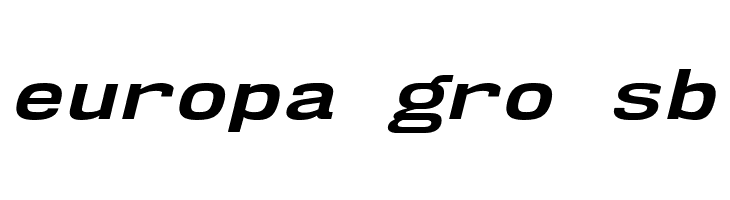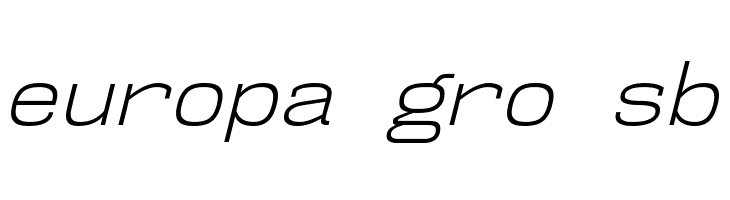
A bold, monospaced font with a modern and structured design.
A modern, monospaced italic font with light strokes and a clean design.
A modern, monospaced font with uniform strokes and a geometric influence.
A bold, monospaced font with a modern, utilitarian design ideal for technical use.
A bold, italicized monospaced font with a modern and structured appearance.
A modern, monospaced italic font with uniform character spacing.
A clean, geometric monospaced font with uniform spacing and modern aesthetics.
A monospaced italic font with a clean, structured design and consistent character width.
A clean, structured monospaced font with consistent stroke thickness and clear character definition.
A modern, light, italic monospaced font with even spacing and sleek design.